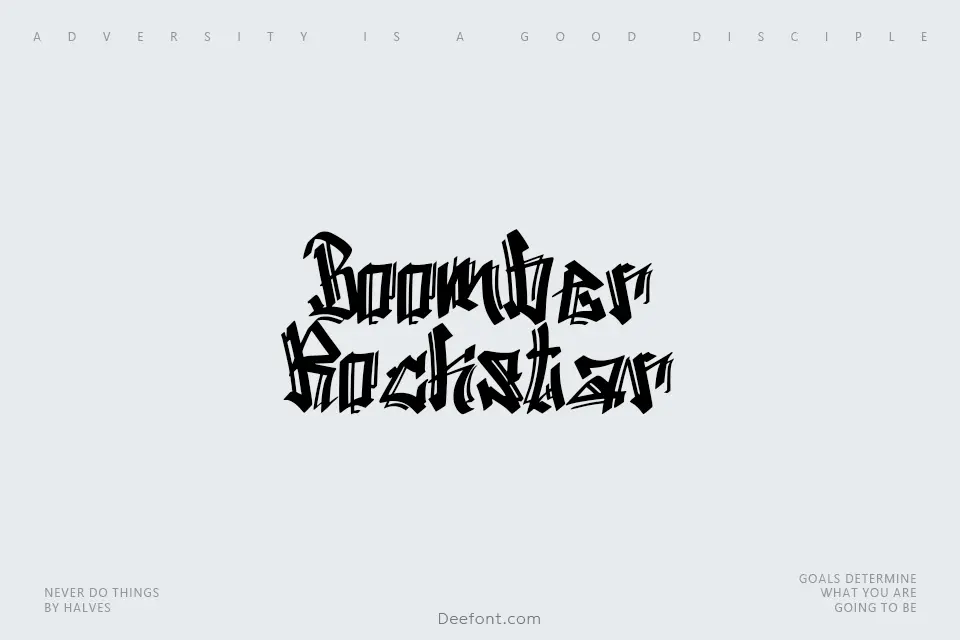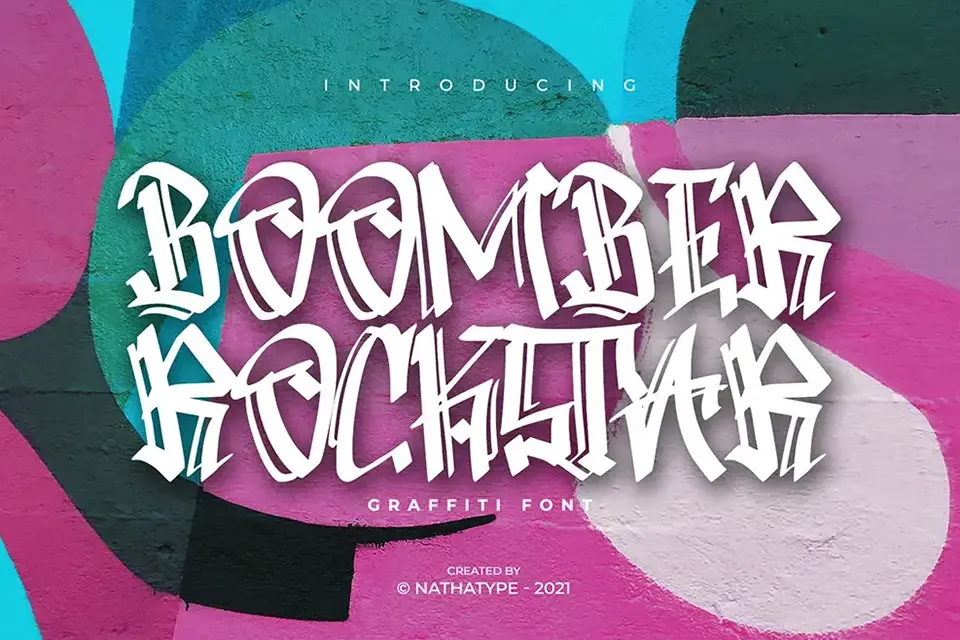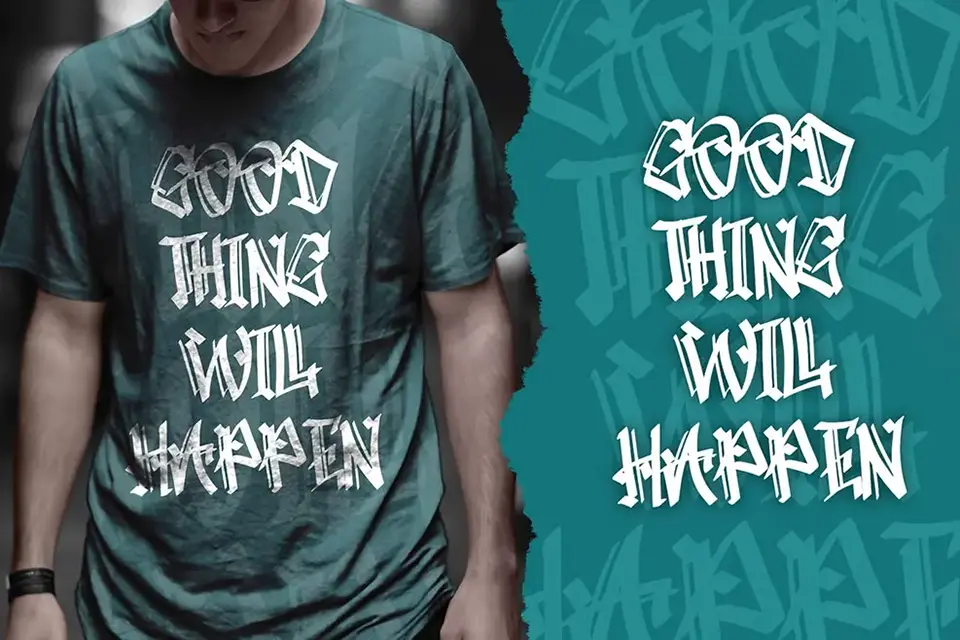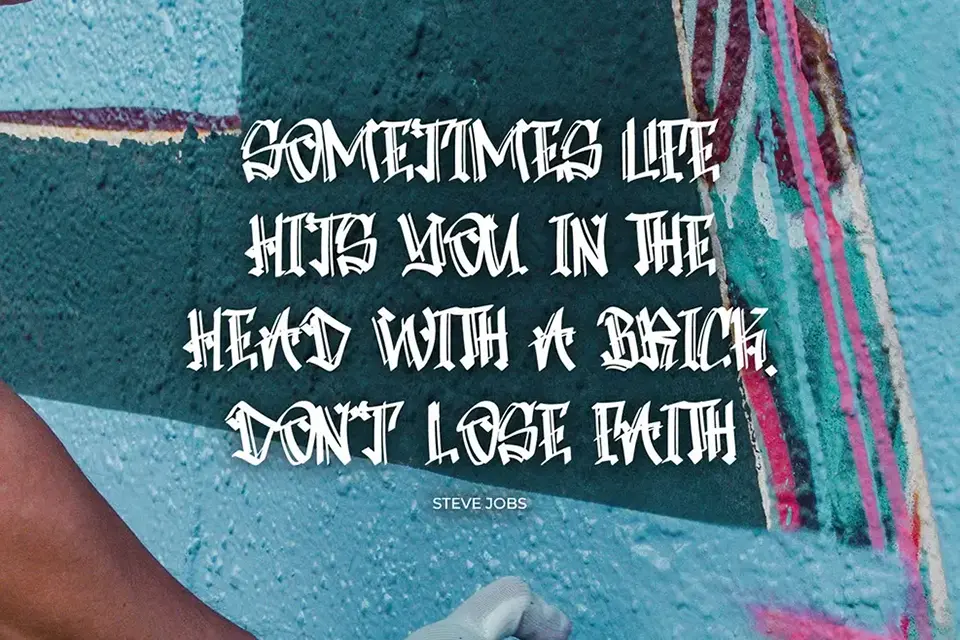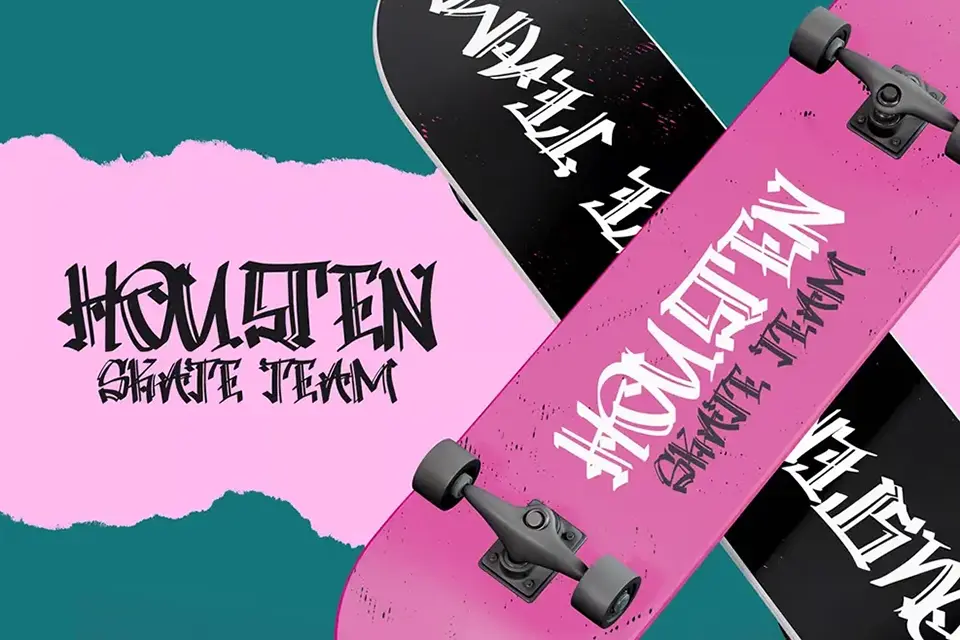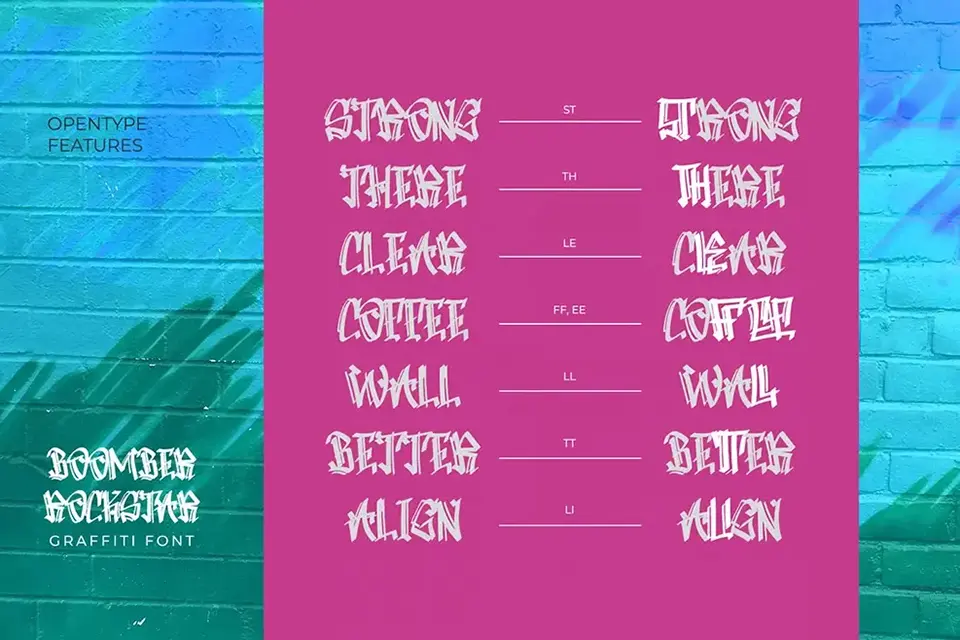
Boomber Rockstar Font
Boomber Rockstar is an artistic graffiti display font designed with unique style and creative flair. This versatile typeface features intricate ligatures and multilingual support, making it perfect for website typography, social media branding, Pinterest banners, printed products, and promotional projects. With its modern and edgy aesthetic, the font delivers eye-catching visual impact for designers seeking distinctive character design solutions.